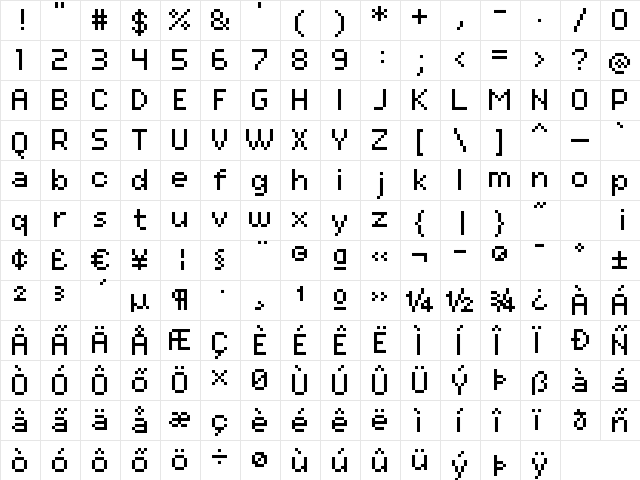
kroeger 07_55 Regular
| Foundry | Adobe Systems Incorporated |
| Designer | Craig Kroeger |
Design Context for kroeger 07_55 Typeface
kroeger 07_55 offers clean, dependable letterforms without strong stylistic allegiance, making it a practical choice for designers who need flexibility.